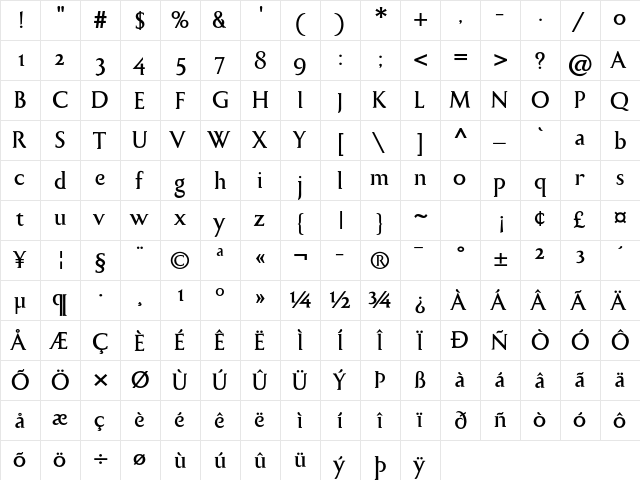
Bodebeck LT Std Extra Bold
| Foundry | Linotype GmbH |
| Designer | Anders Bodebeck |
Design Context for Bodebeck LT Std Typeface
Bodebeck LT Std takes a measured approach to typography — its balanced proportions and neutral character make it a reliable workhorse for both digital and print work. The heavy weight commands attention and anchors typographic hierarchies.